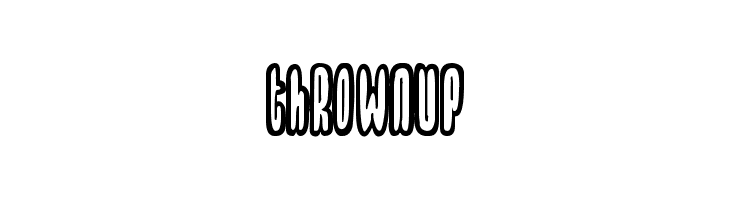
( https://www.facebook.com/pages/Magique-Fonts-Koczman-B%C3%A1lint/110683665690882 )
A bold, playful font with rounded strokes and a bubble-like appearance.